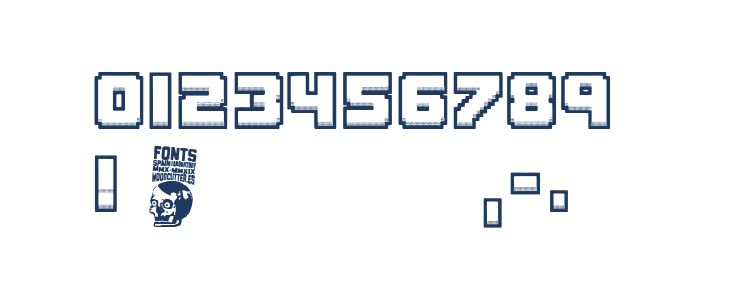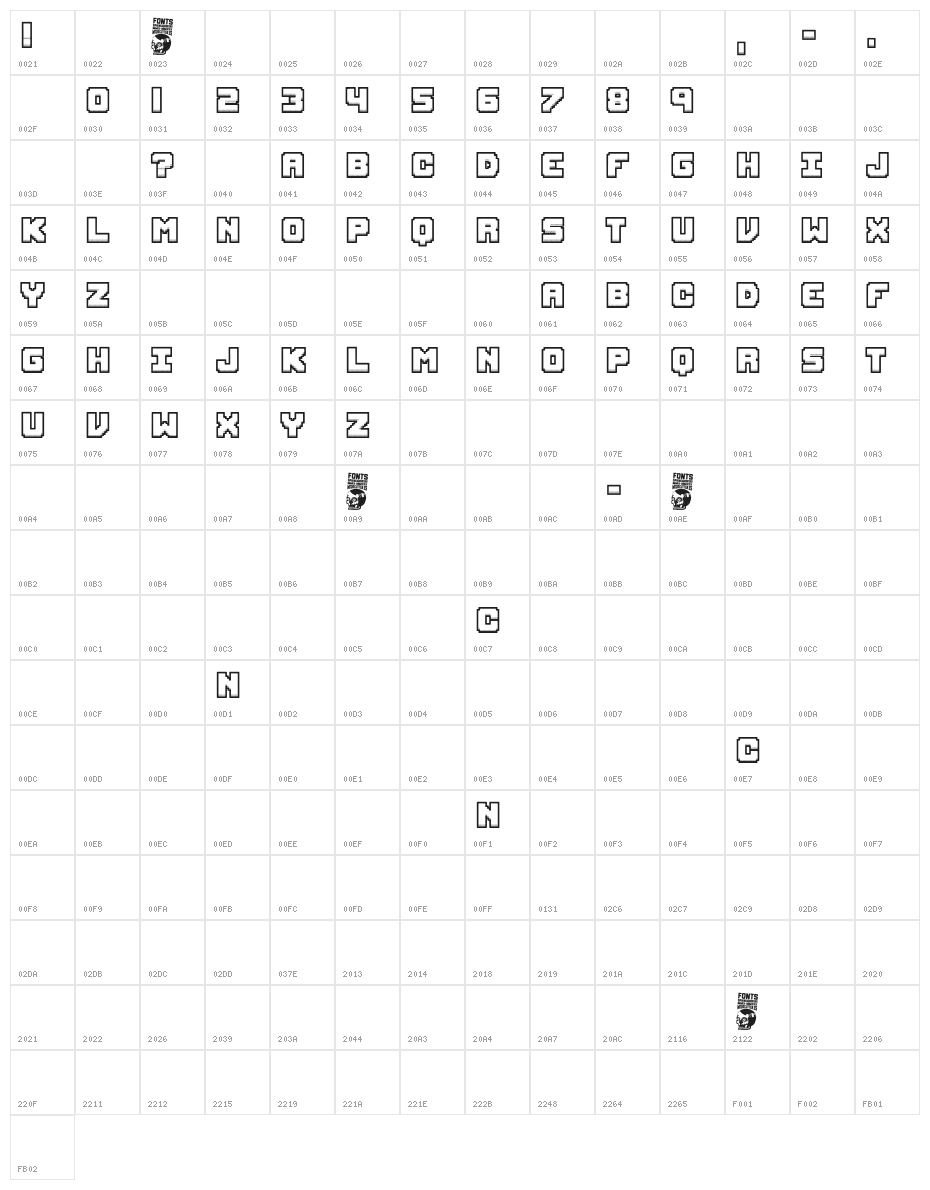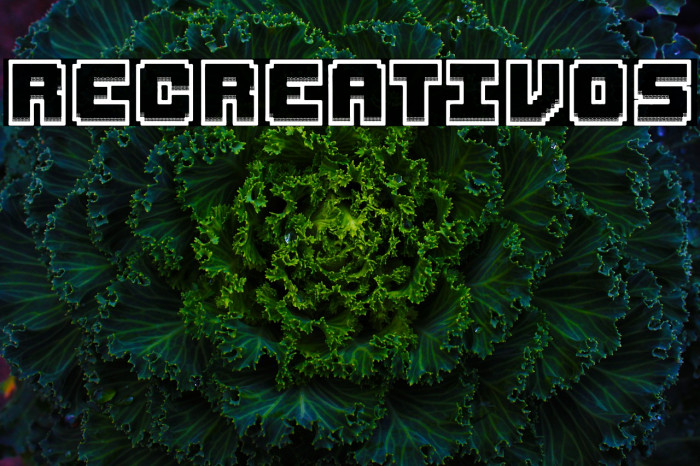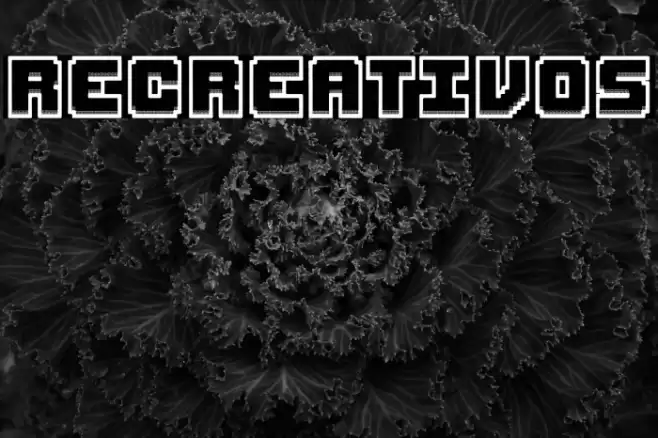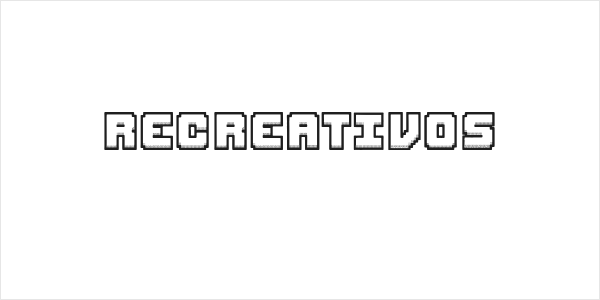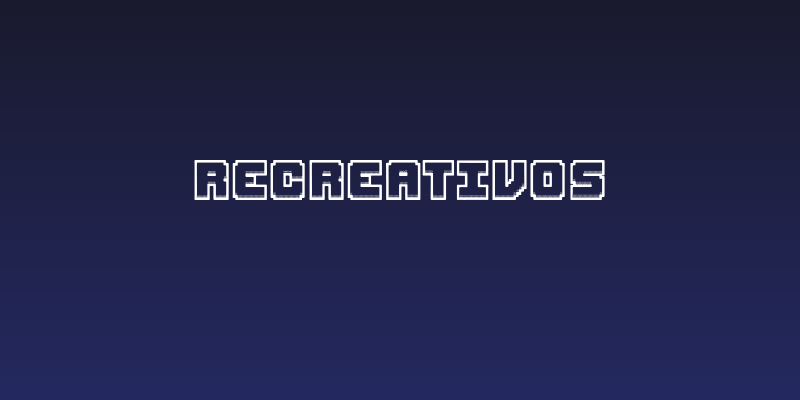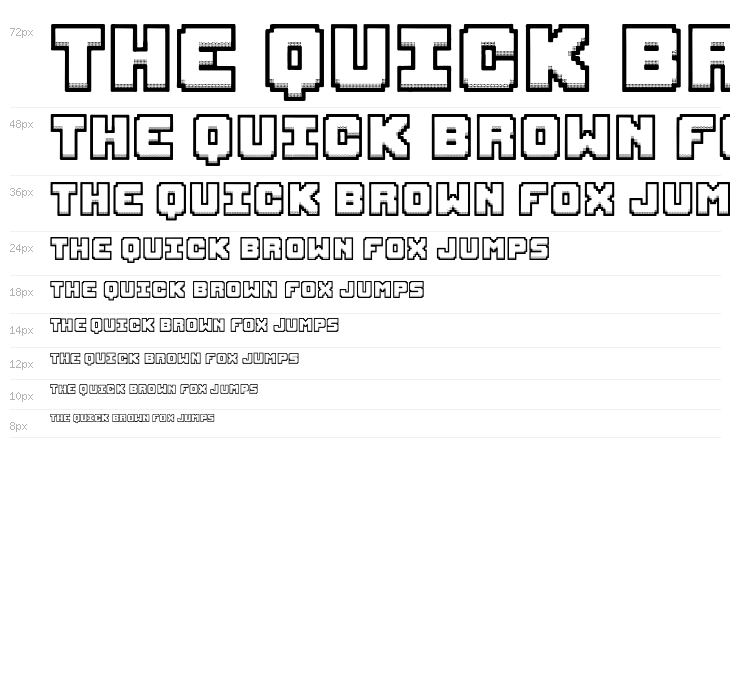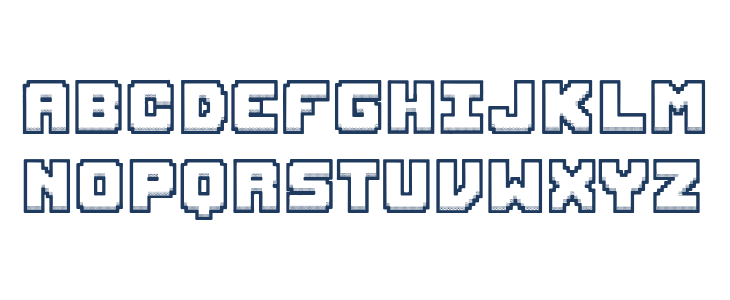
Recreativos Font
Recreativos Description
This font features a bold, blocky style with a pixelated, retro aesthetic reminiscent of early video game graphics. The characters are outlined with a thick border, giving them a three-dimensional appearance. The uppercase and lowercase letters maintain a consistent height, creating a uniform look across the alphabet. The numbers and special characters follow the same design principles, ensuring cohesion throughout. This font's distinct style makes it ideal for projects that require a nostalgic or playful touch.
Overall StyleRetro, Playful
Proposed ProjectsPerfect for video game designs, retro-themed posters, digital art, and playful branding projects.